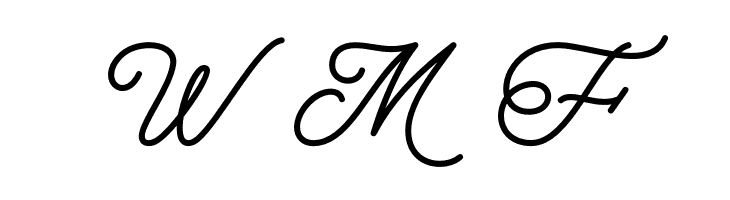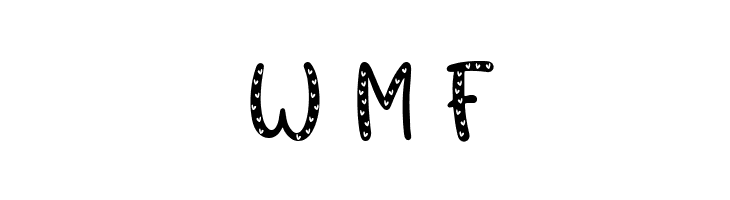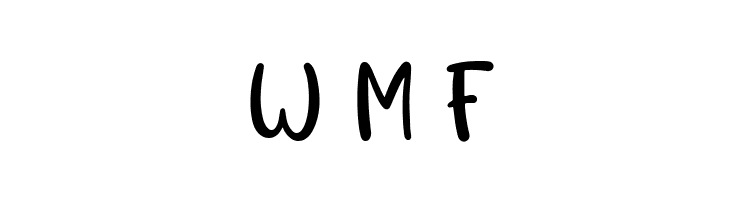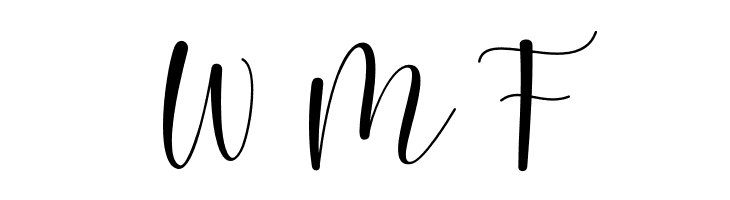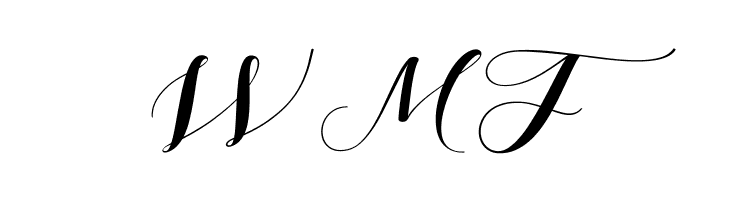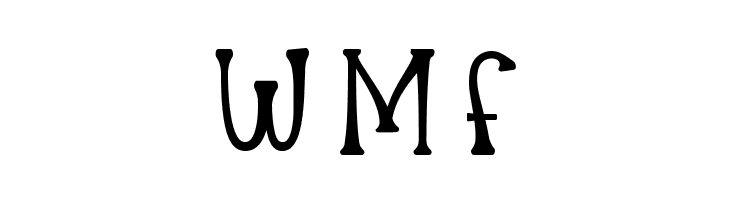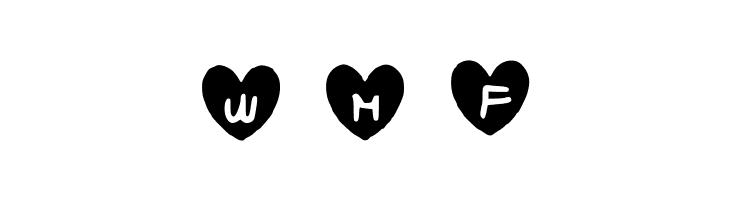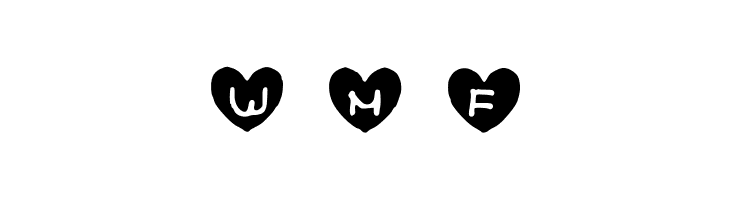
JLR Pawrty Hearty Font
A playful font with letters inside paw prints, perfect for fun and pet-themed projects.
Hearty Kitten Demo Font
A playful, hand-drawn font with whimsical and expressive characters.
Hearty Morning - Personal Use Font
An elegant script font with flowing cursive letters and intricate swashes.
Hearty Chintya Personal Use Font
A playful, handwritten font with smooth, rounded edges and a friendly style.
pretty hearty - Personal Use Font
A lively and elegant script font with fluid strokes and cohesive design.
Hearty Chintya Display Personal Use Font
A playful, heart-patterned decorative font with a whimsical and friendly style.
Hearty_Geelyn_Edits_Crayon Font
A playful, crayon-textured font with characters inside heart shapes.
Hearty_Geelyn_Edits_Natural_Pencil Font
Hand-drawn, textured heart shapes in a repeating pattern.
Hearty_Geelyn_Edits_Oil_Brush Font
A playful, heart-enclosed font with a handwritten, brush-like style.
Hearty_Geelyn_Edits_Brush Font
A whimsical, heart-shaped font with a handwritten, brush-like style.
Hearty_Geelyn_Edits_Marker Font
A playful, heart-enclosed handwritten font perfect for romantic or themed designs.
Hearty_Geelyn_Edits_Watercolor_Brush Font
A whimsical font with characters inside heart shapes, ideal for romantic and playful designs.
Hearty_Geelyn_Edits_Calligraphy_Brush_2 Font
A decorative font with characters enclosed in heart shapes, offering a playful and romantic style.
Hearty_Geelyn_Edits_Airbrush Font
A playful, heart-encased decorative font with a bold, hand-drawn style.
Hearty_Geelyn_Edits_Calligraphy_Brush_1 Font
A playful, heart-themed decorative font with a hand-drawn, artistic style.
Loving Hearty Regular Font
A romantic and sophisticated script font with flowing, interconnected letters.
With Hearty Font
A fine, cursive handwritten font with a graceful, flowing style.